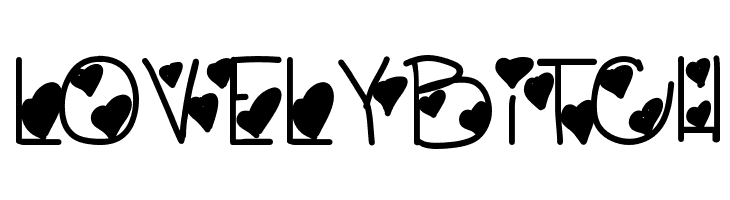
A playful, heart-themed decorative font with bold, rounded characters.
A playful font with heart motifs on each character, perfect for romantic and fun designs.